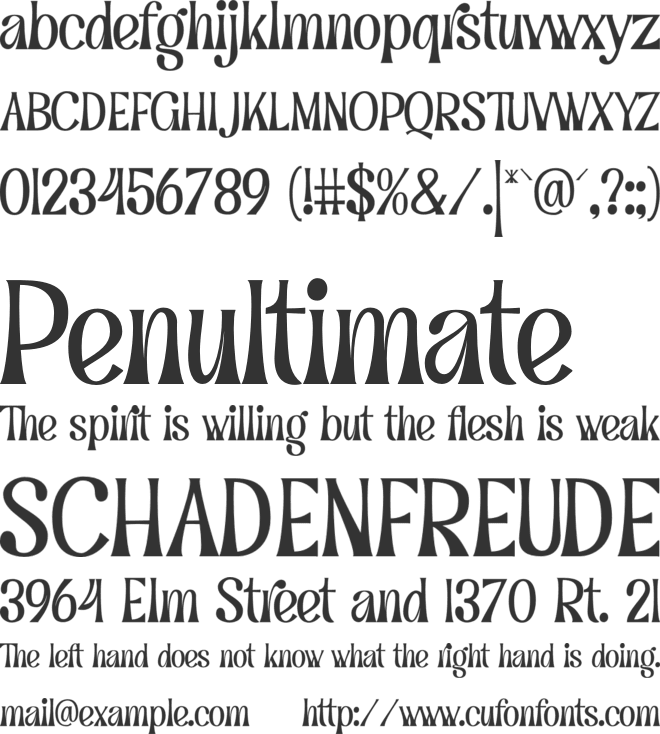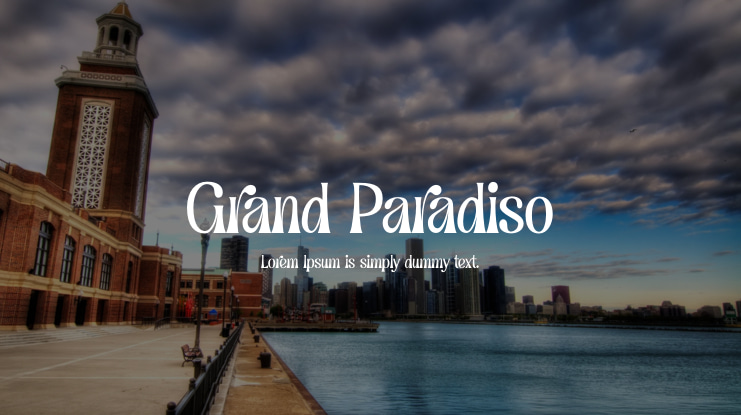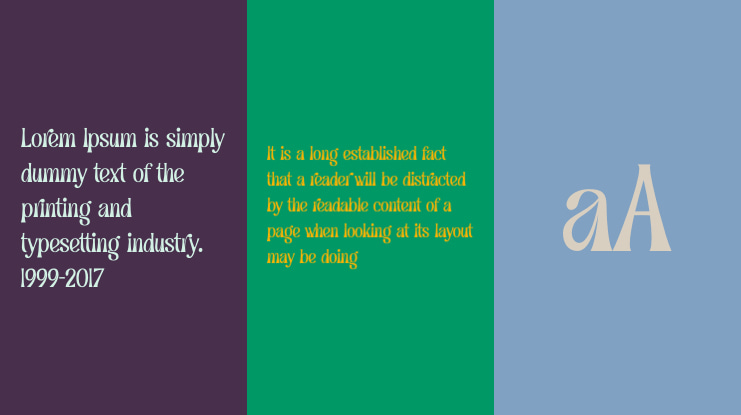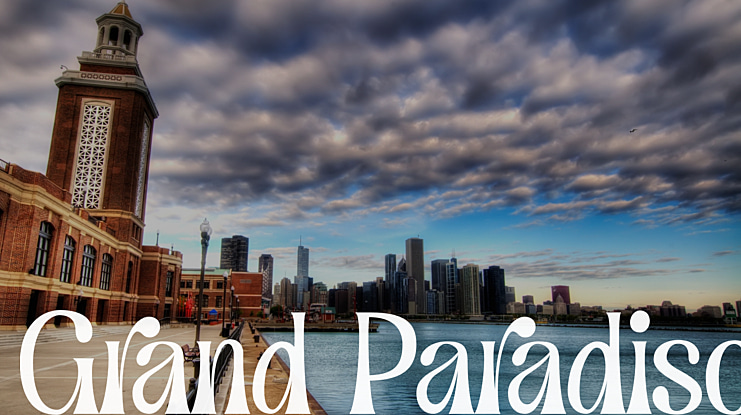
Grand Paradiso Font Family
Grand Paradiso is a luxurious and elegant display font that will add a touch of sophistication to any design. With its bold and dramatic curves, this font is perfect for headlines, titles, and branding projects that require a touch of elegance and class. Inspired by the grandeur of nature and the beauty of mountains, Grand Paradiso is designed to capture the essence of nature and the majesty of the great outdoors. Its unique and artistic letterforms make it ideal for creating logos, posters, and other design projects that require a touch of originality and creativity. Whether you're designing for a luxury brand or creating a beautiful piece of typography, Grand Paradiso is the perfect choice for your next project.
Damarletter